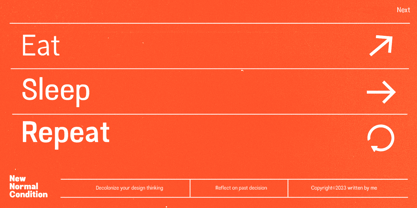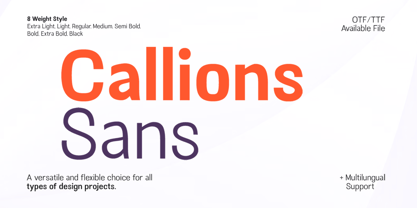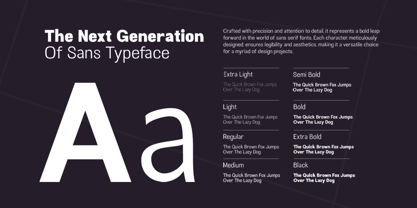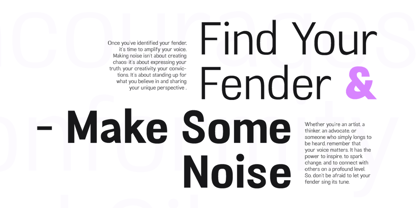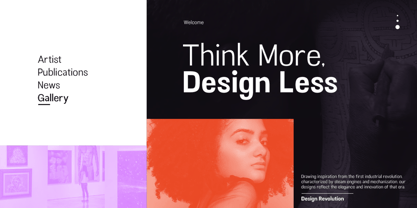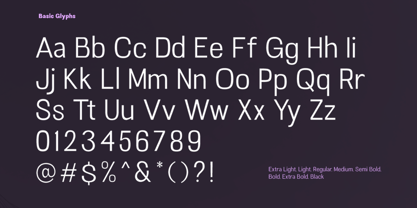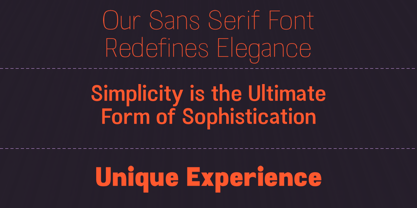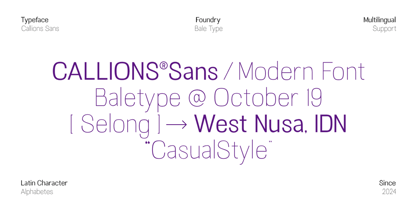
Callions
by Bale Type
The Callions Font Family was designed by Sarid Ezra, Dzikrul Aulia and published by Bale Type. Callions contains 8 styles and family package options. More about this family
Introducing Callions, basic sans serif family with contemporary look designed to offer a minimalist, versatile, and modern typeface that suitable for any purposes. With 8 weight style, from Extra Light to Black, that you can choose to use for any project such as sign, quote, branding, etc. This font family also support multi language!
Designers: Sarid Ezra, Dzikrul Aulia
Foundry: Bale Type